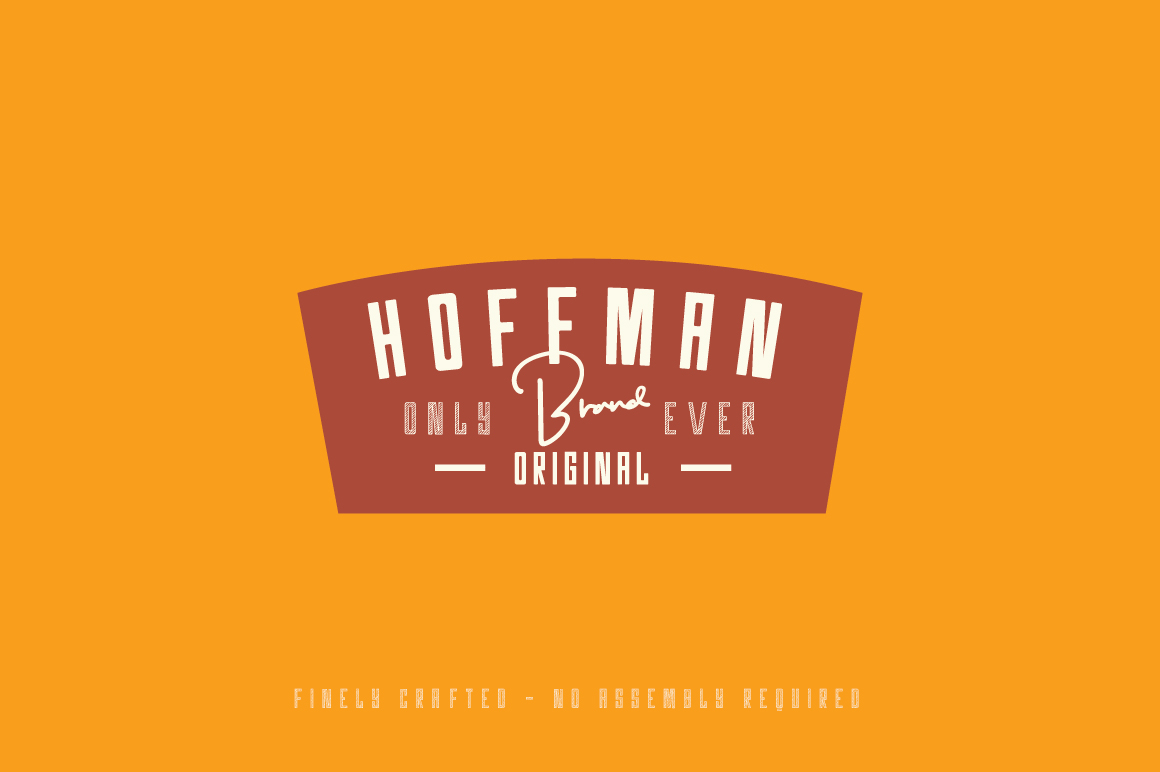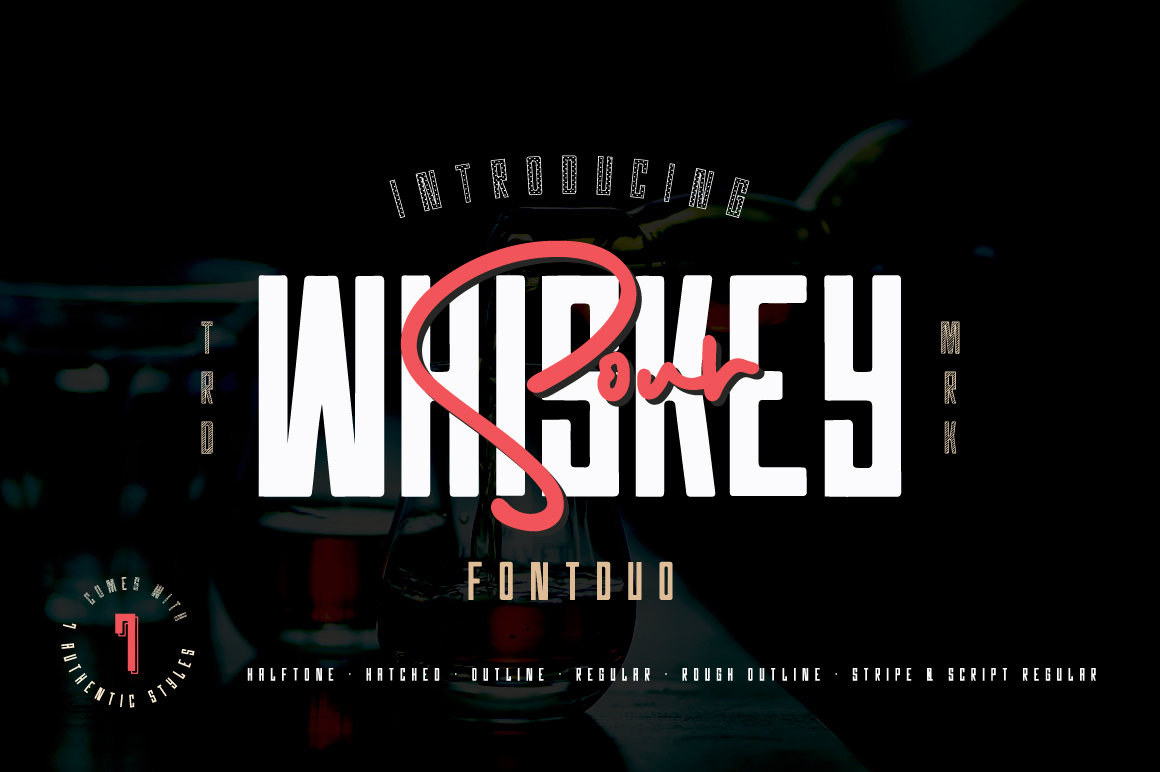
Whiskey Sour Vintage Font Duo
Whiskey Sour is a mid-century inspired font duo containing 6 styles of the industrial sans serif, plus an accompanying curvy script font. This duo is perfect for creating retro badges, vintage labels, and much more.